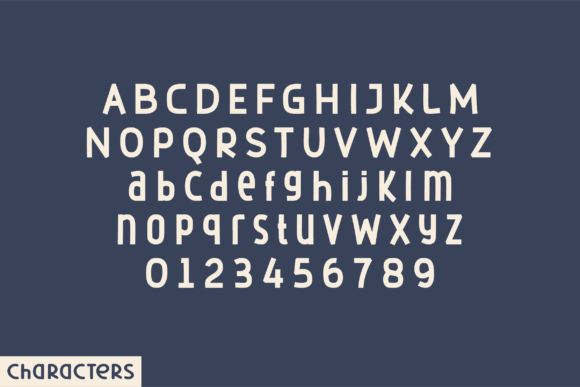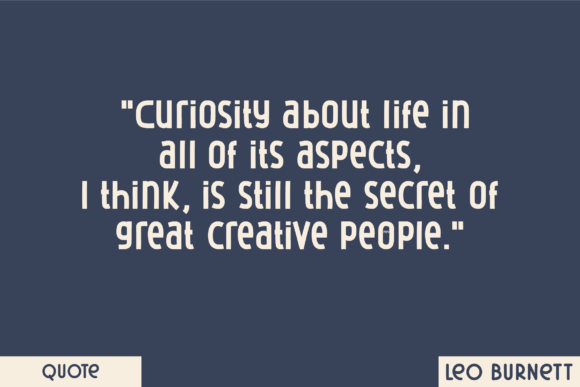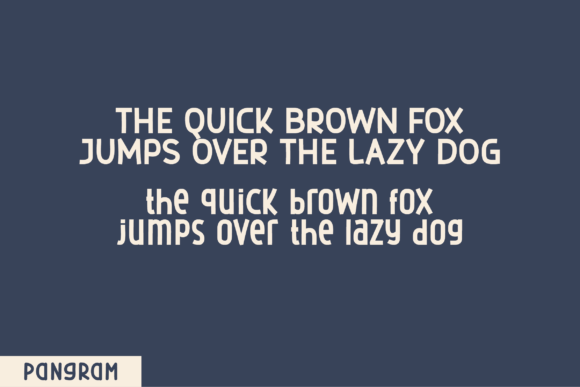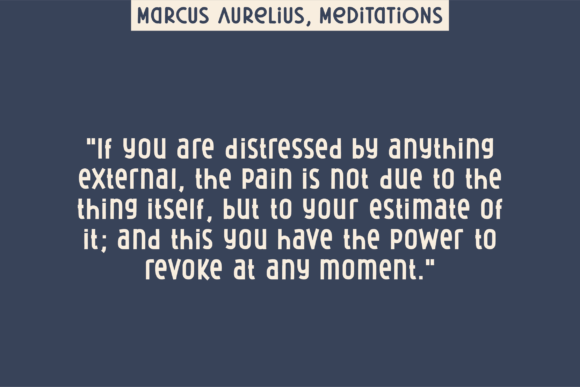
Discover the Unique Charm of Baileys Macarons Font
Are you a designer or crafter looking for a font that adds a touch of uniqueness to your projects? Look no further than Baileys Macarons Font. This natural sans serif font has been crafted with precision, making it a standout choice for a variety of design applications. In this article, we’ll dive into the features and benefits of Baileys Macarons Font, and explore how it can elevate your designs.
The Story Behind Baileys Macarons Font
Baileys Macarons Font is a carefully crafted sans serif font that boasts a distinctive characteristic: not a single node in each character’s indentation has been altered. This attention to detail results in a font that is both visually interesting and unique. The font’s creator aimed to produce a typeface that would offer a fresh perspective on traditional sans serif fonts, and Baileys Macarons Font certainly delivers.
Key Features of Baileys Macarons Font
• Natural and Organic Feel: Baileys Macarons Font has a natural, organic feel that makes it perfect for designs that require a personal touch.
• Unique Character Indentation: The font’s distinctive node indentation characteristic sets it apart from other sans serif fonts.
• Versatile: Baileys Macarons Font is suitable for a wide range of design applications, from quotes and notes to tees and product design.
• Easy to Read: Despite its unique features, Baileys Macarons Font remains easy to read, making it a great choice for body text and headlines.
Use Cases for Baileys Macarons Font
Baileys Macarons Font is an incredibly versatile typeface that can be used in various design projects. Here are some ideas to get you started:
• Quote and Inspiration Boards: Add a touch of elegance and sophistication to your quote and inspiration boards with Baileys Macarons Font.
• Fashion and Crafting Projects: Use Baileys Macarons Font to add a personal touch to your fashion and crafting projects, such as t-shirt designs, stickers, and more.
• Product Design: Baileys Macarons Font is perfect for product design, including packaging, labels, and branding materials.
• Stationery and Journaling: Add a unique touch to your stationery and journaling projects with Baileys Macarons Font.
Tips for Using Baileys Macarons Font
To get the most out of Baileys Macarons Font, here are some tips to keep in mind:
• Experiment with Font Sizes: Baileys Macarons Font looks great in various font sizes, from large headlines to smaller body text.
• Pair with Other Fonts: Try pairing Baileys Macarons Font with other fonts to create a unique and visually interesting design.
• Use in Combination with Images: Baileys Macarons Font looks great when used in combination with images, making it perfect for designs that require a mix of text and visuals.
Font Name Baileys Macarons Font
Author Hanna Bie
Baileys Macarons Font is a unique and versatile typeface that offers a fresh perspective on traditional sans serif fonts. With its natural and organic feel, distinctive character indentation, and ease of use, it’s perfect for designers and crafters looking to add a touch of personality to their projects. Whether you’re working on quotes, notes, tees, or product design, Baileys Macarons Font is sure to elevate your designs and make them stand out.